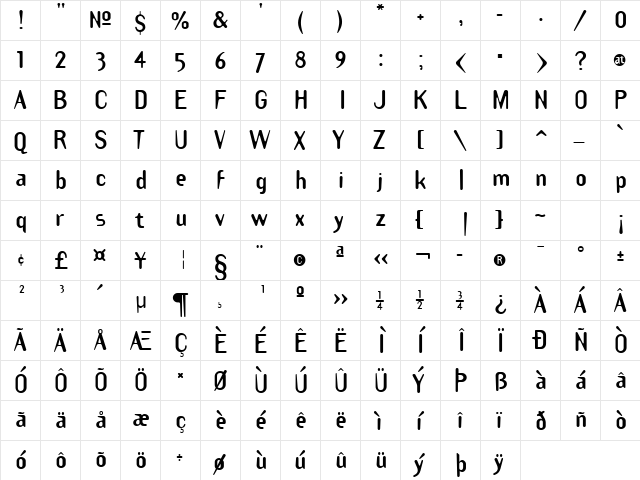
Smoothplate Black
Design Context for Smoothplate Typeface
Smoothplate takes a measured approach to typography — its balanced proportions and neutral character make it a reliable workhorse for both digital and print work.